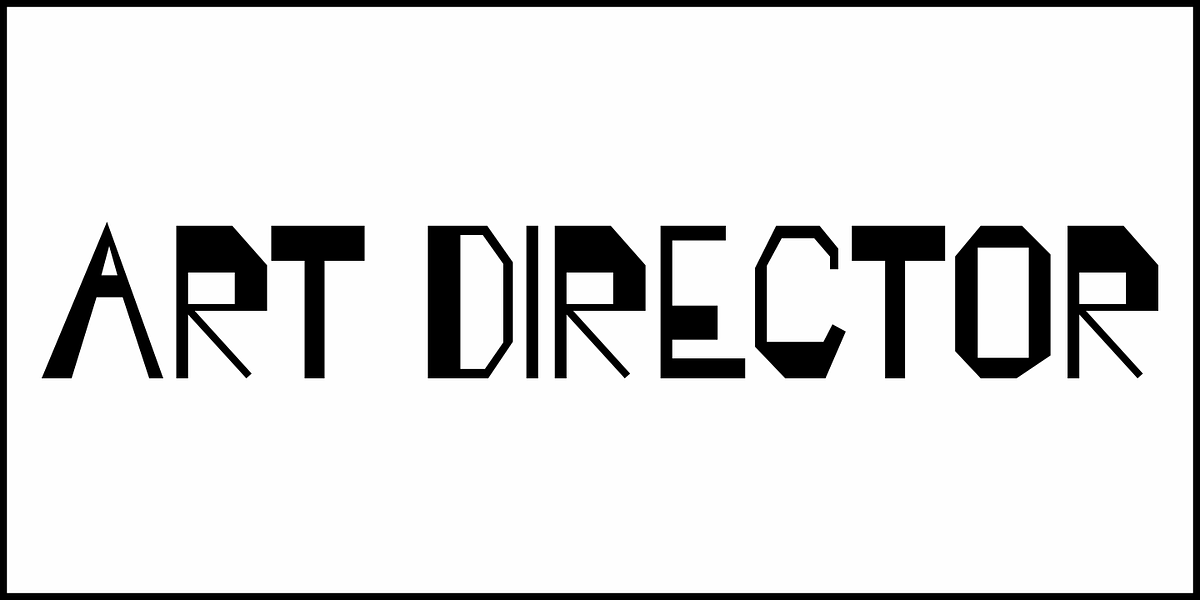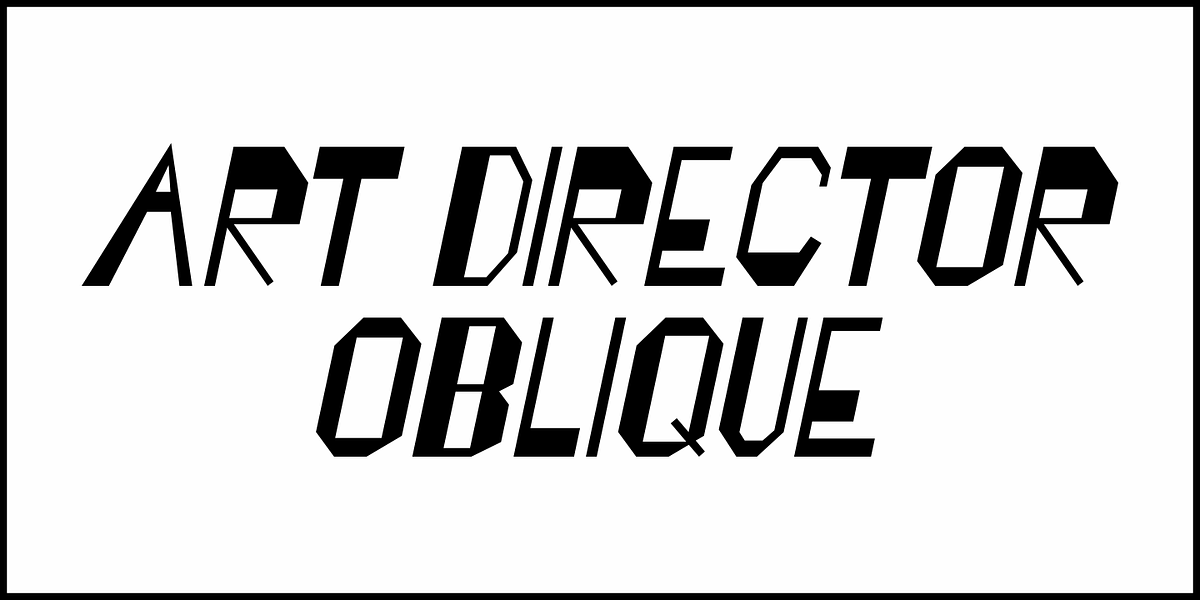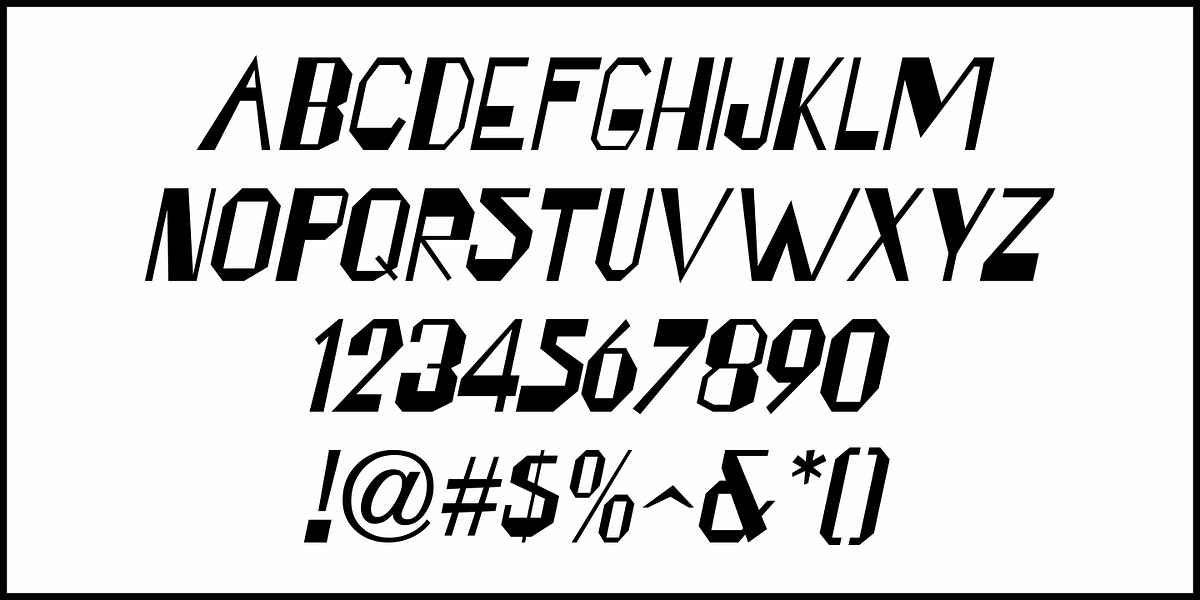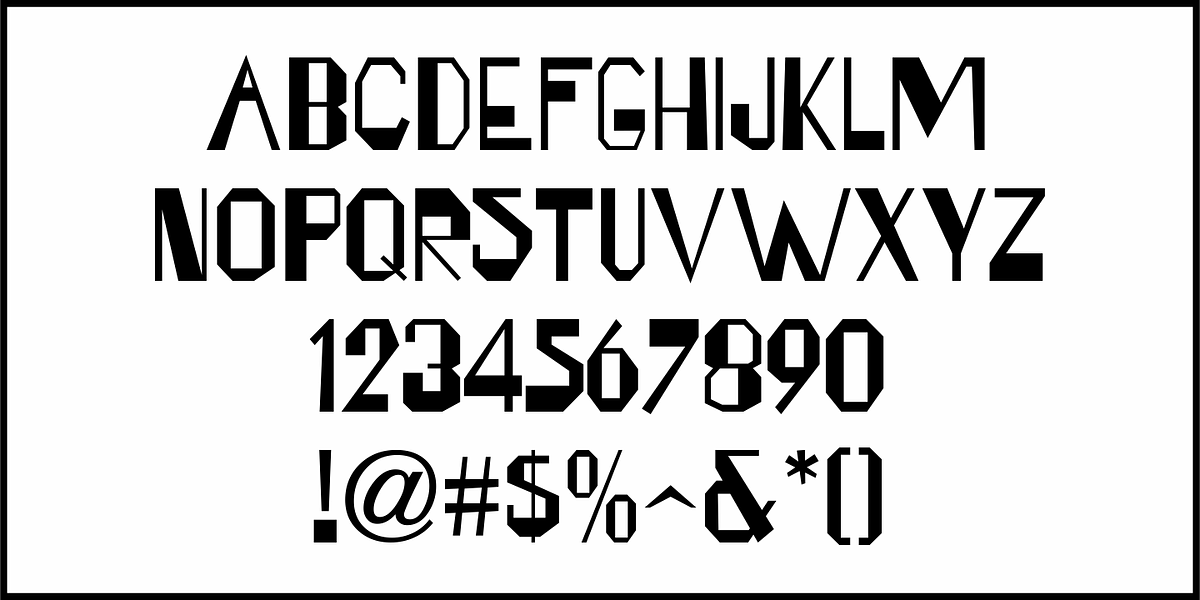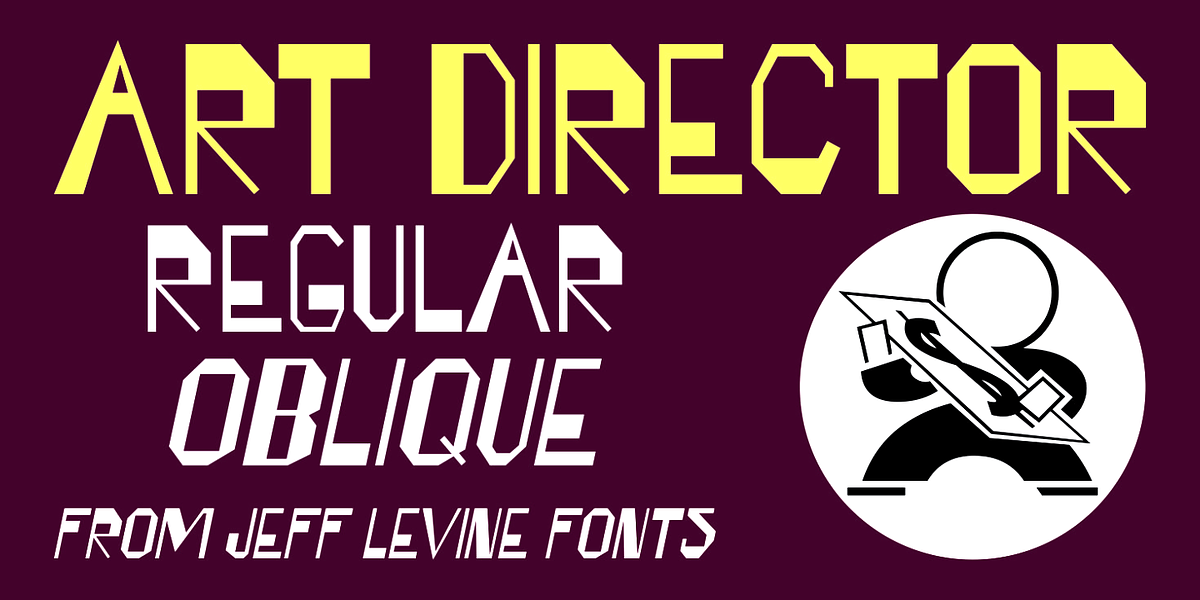
Art Director JNL
Free-form hand lettering on a 1979 poster for the Washington, D.C. exhibition of watercolors and etchings by the Elie Abrahami inspired Art Director JNL; available in both regular and oblique versions.
This type of lettering was most popular in the late 50s through the mid-60s for movie titles, greeting cards and poster text.